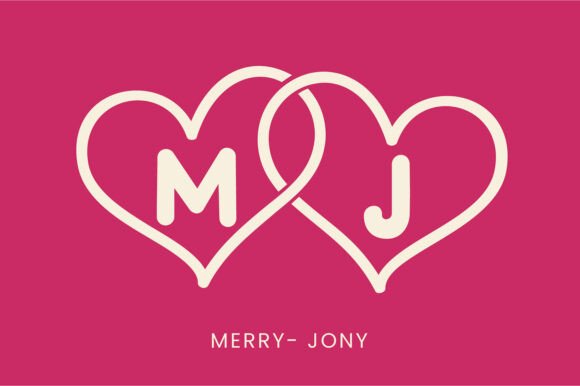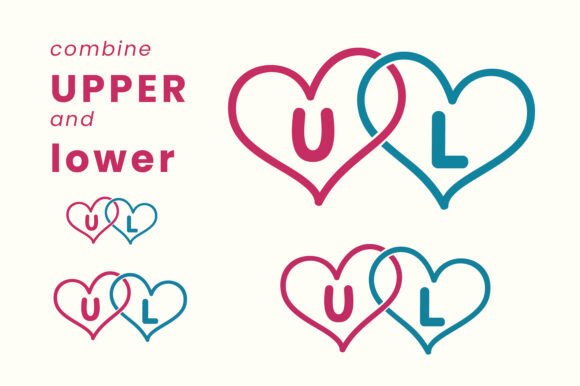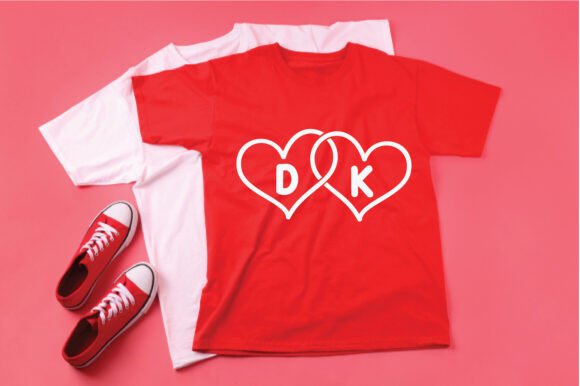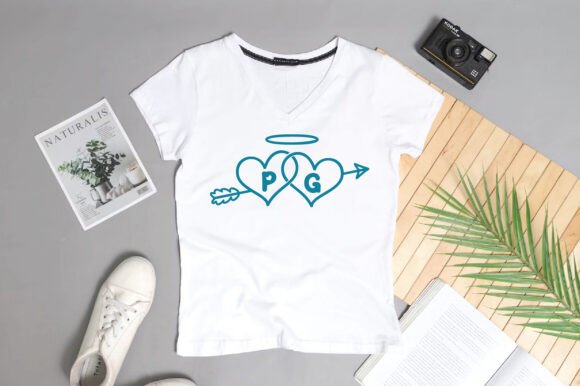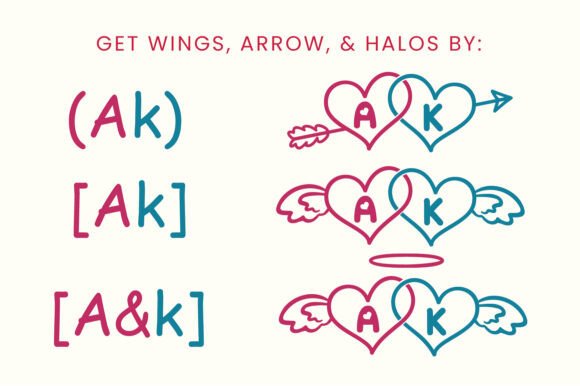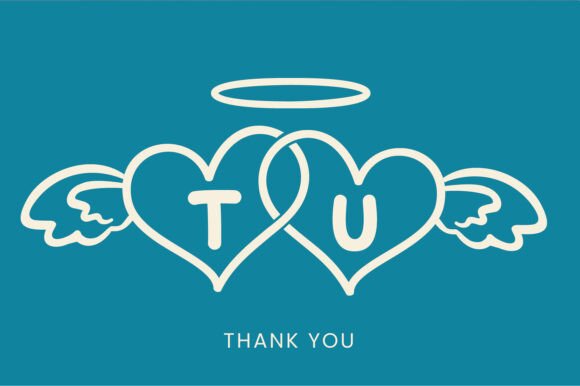
Introducing Connected Heart Font: The Ultimate Design Element for Romantic Projects
In the world of typography, there’s a font that has captured the hearts of designers and crafters alike – the Connected Heart Font. This unique typeface is a game-changer for anyone looking to add a touch of romance, whimsy, and creativity to their projects. In this article, we’ll dive into the features, benefits, and uses of Connected Heart Font, and explore how it can elevate your designs to the next level.
What is Connected Heart Font?
Connected Heart Font is a distinctive typeface that combines uppercase and lowercase letters into heart-shaped designs. What sets it apart is its playful and charming elements, including wings, arrows, and halos, which add a touch of magic to any design. This font is perfect for designers, crafters, and DIY enthusiasts looking to create romantic and personalized projects that stand out from the crowd.
Features of Connected Heart Font
- Unique Heart-Shaped Designs: Each letter is carefully crafted into a heart shape, making it perfect for romantic projects and wedding themes.
- Playful Elements: The font includes a range of playful elements, such as wings, arrows, and halos, which add a touch of whimsy and creativity to your designs.
- Uppercase and Lowercase Letters: The font features both uppercase and lowercase letters, allowing you to create a range of designs, from bold and dramatic to soft and delicate.
- Easily Customizable: Connected Heart Font is easy to customize, making it perfect for designers and crafters who want to add their personal touch to their projects.
Benefits of Using Connected Heart Font
So, why choose Connected Heart Font for your projects? Here are just a few benefits:
- Adds Charm and Creativity: The font’s unique heart-shaped designs and playful elements add a touch of charm and creativity to any design.
- Perfect for Romantic Projects: Connected Heart Font is ideal for romantic projects, such as wedding invitations, Valentine’s Day cards, and anniversary gifts.
- Versatile: The font can be used for a range of projects, from digital designs to handmade crafts.
- Easily Readable: Despite its unique design, Connected Heart Font is easily readable, making it perfect for use in titles, headings, and body text.
Uses of Connected Heart Font
So, what can you create with Connected Heart Font? Here are just a few ideas:
- Wedding Invitations: Create beautiful and unique wedding invitations that set the tone for a romantic and memorable day.
- Valentine’s Day Cards: Design personalized Valentine’s Day cards that will make your loved one feel special.
- Personalized Crafts: Use Connected Heart Font to create personalized crafts, such as customized jewelry, decorations, and gifts.
- Digital Designs: Use the font to create stunning digital designs, such as social media graphics, blog headers, and website elements.
Tips for Using Connected Heart Font
Here are a few tips for getting the most out of Connected Heart Font:
- Experiment with Colors: Try pairing the font with different colors and textures to add depth and interest to your designs.
- Mix and Match: Combine Connected Heart Font with other fonts and design elements to create a unique and eye-catching design.
- Keep it Simple: Don’t be afraid to keep your design simple and elegant – sometimes, less is more.
Connected Heart Font is a unique and versatile typeface that is perfect for designers, crafters, and DIY enthusiasts looking to add a touch of romance and whimsy to their projects. With its heart-shaped designs, playful elements, and easily customizable features, this font is sure to become a favorite in your design toolkit. So why not give it a try and see how it can elevate your designs to the next level?